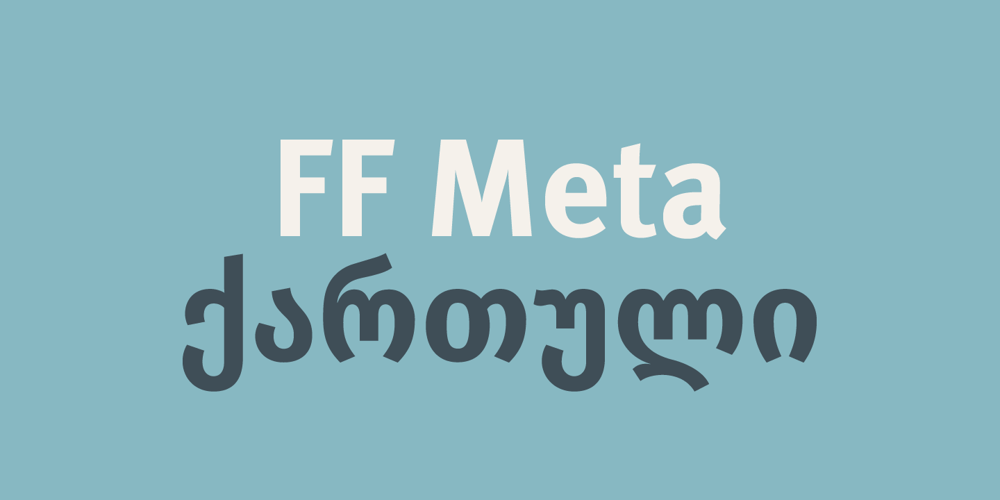
FF Meta Georgian Font Family was designed by Erik Spiekermann, Akaki Razmadze and published by FontFont. FF Meta Georgian contains 2 styles and family package options. FF Meta® Georgian is based on the same humanistic shapes and proportions as the original 1991 FF Meta design. The narrow proportions, slight variation in stroke thickness and sheared terminals that are hallmarks of FF Meta are also present in the Georgian design. Each of the two weights in the family contain all the characters needed to set modern Georgian, as well as additional symbols for the Old Georgian, Megrelian, Svan, Abkhazian and Ossetian languages.